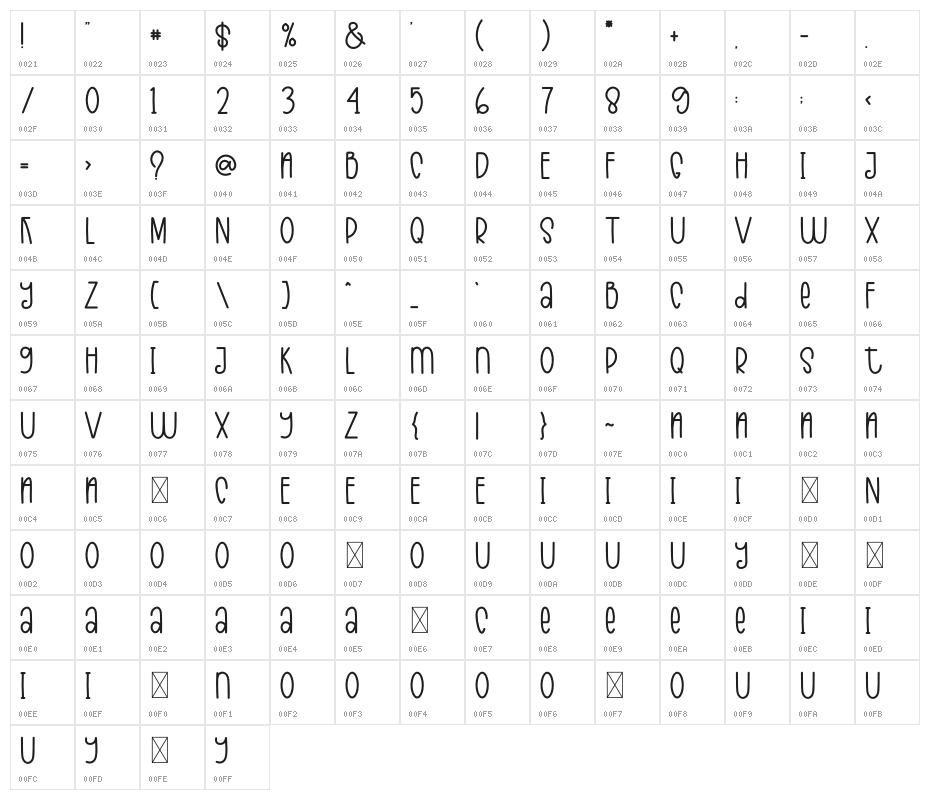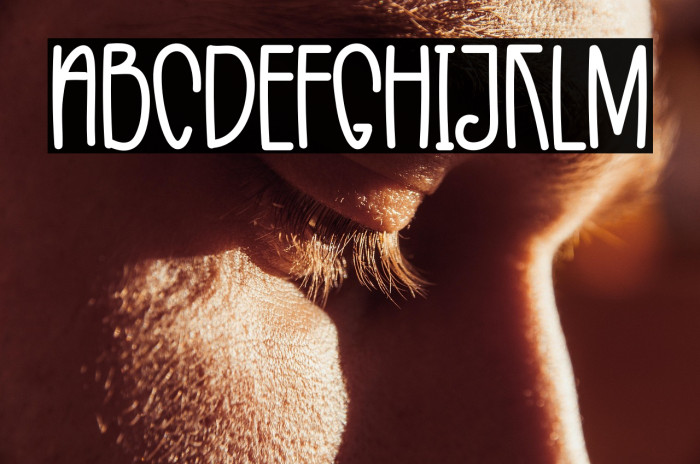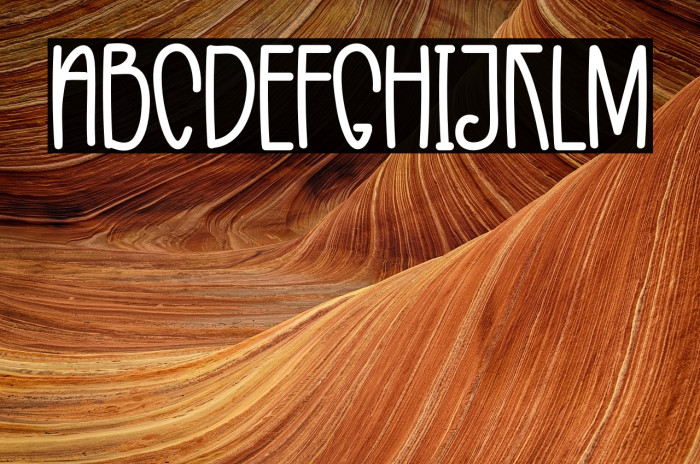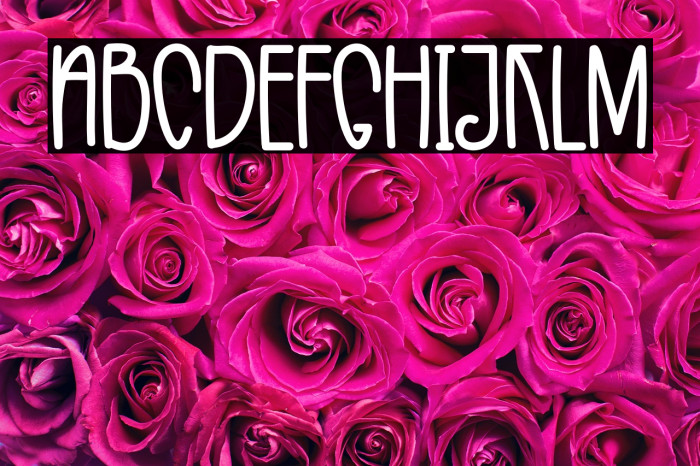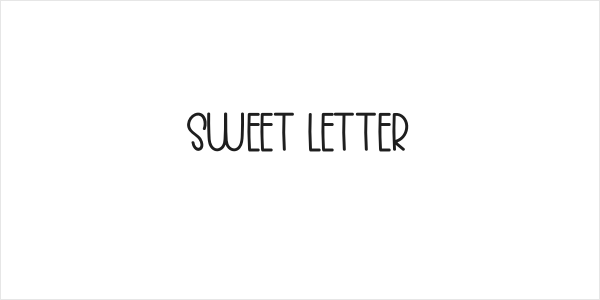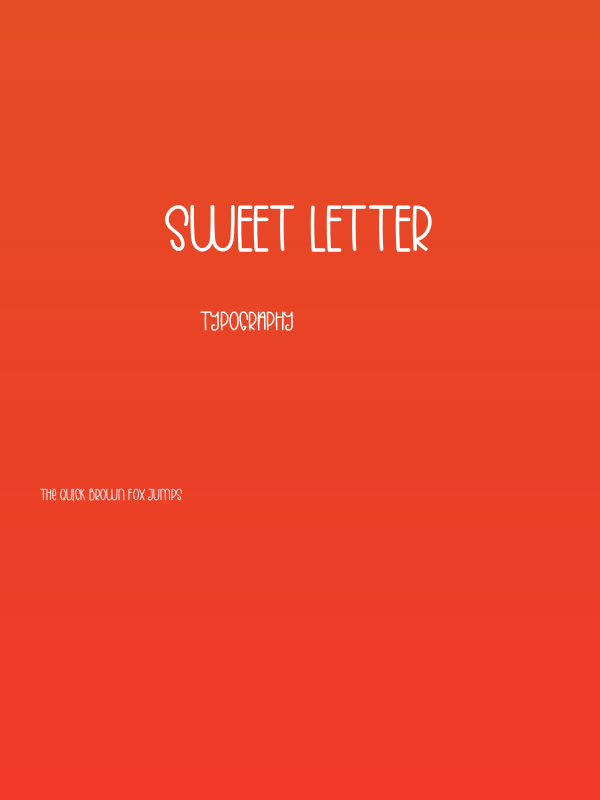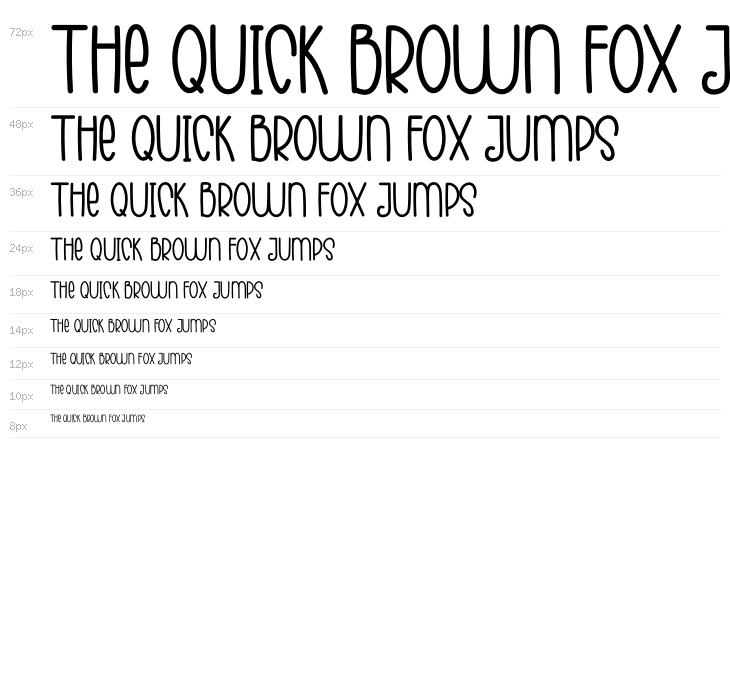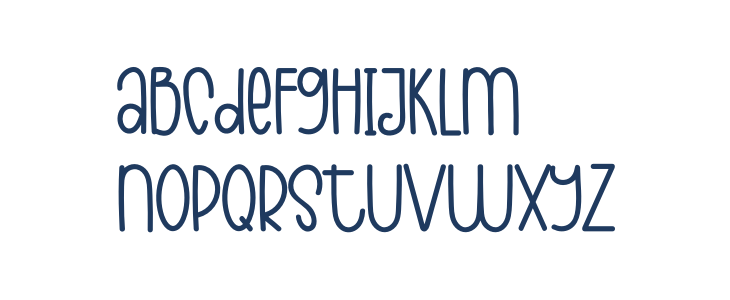
SWEET LETTER Font
SWEET LETTER Description
This playful and whimsical font features rounded, elongated characters that convey a sense of fun and creativity. The uppercase and lowercase letters maintain a consistent height, giving the font a uniform appearance. The numbers and special characters are designed with the same playful style, making them easily recognizable and cohesive with the rest of the font. The overall design is clean and legible, with a slight hand-drawn feel that adds a personal touch. This font is perfect for projects that require a lighthearted and approachable aesthetic.
| Proposed Projects | Ideal for children's books, greeting cards, playful branding, and creative posters. |